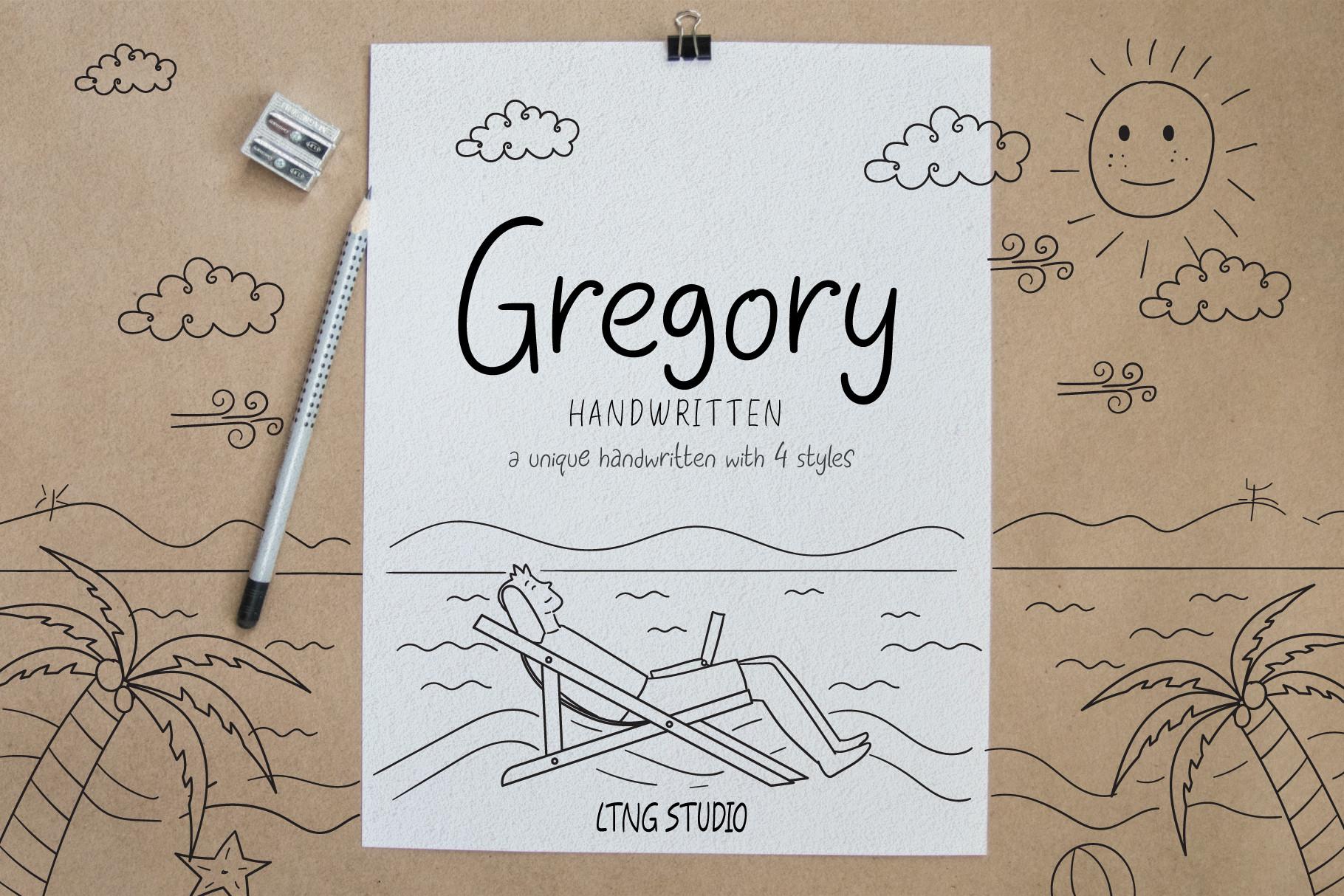
Gregory Handwritten Font Description
This is Gregory Handwritten – a unique handwritten font family. It is perfect for handwritten notes, children’s books, sweet greeting cards, DIY projects, Branding & Wedding Invitations. Play with letter spacing and alternate glyphs to get different looks!